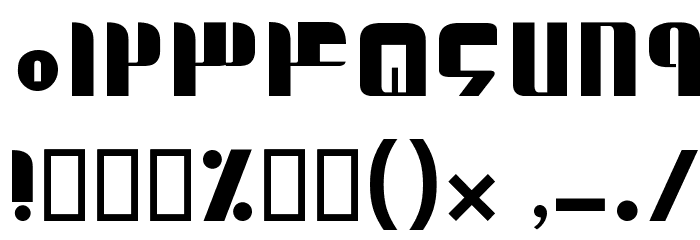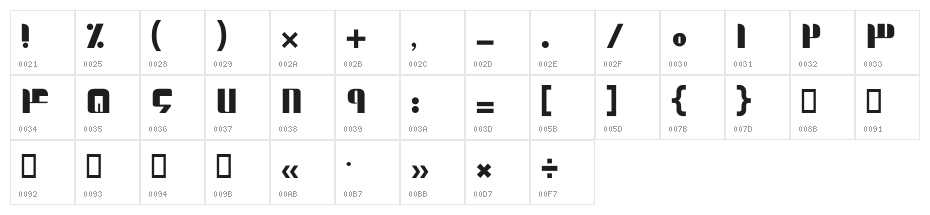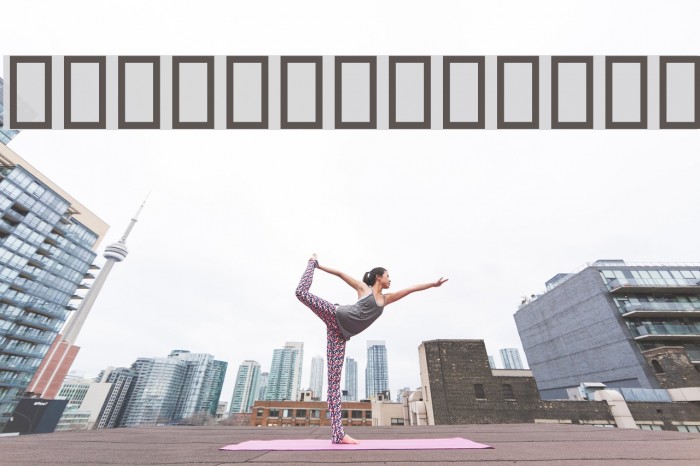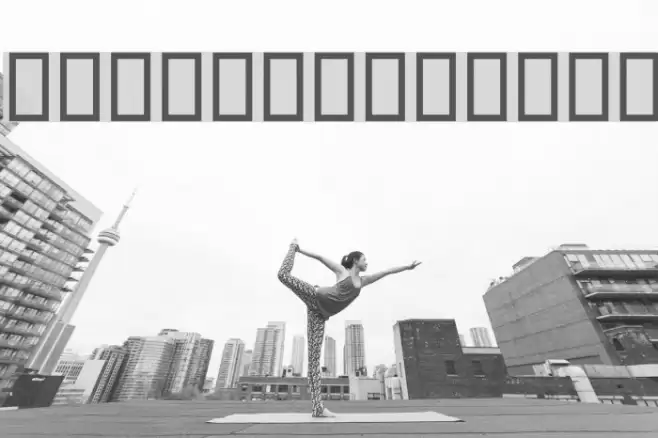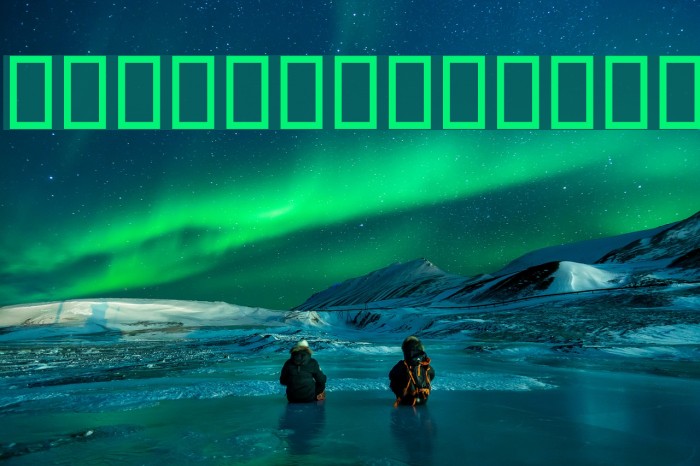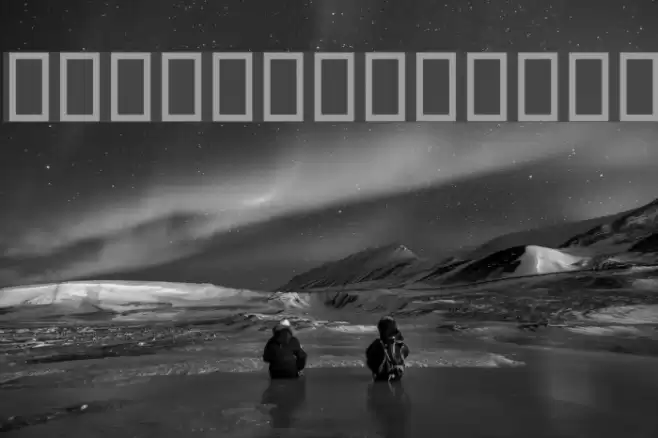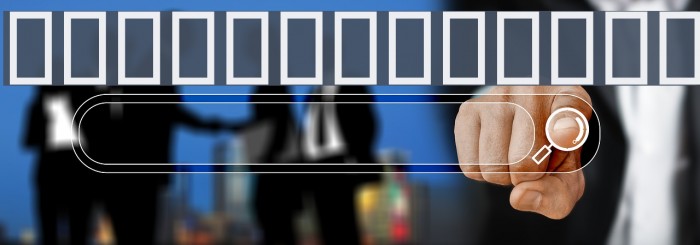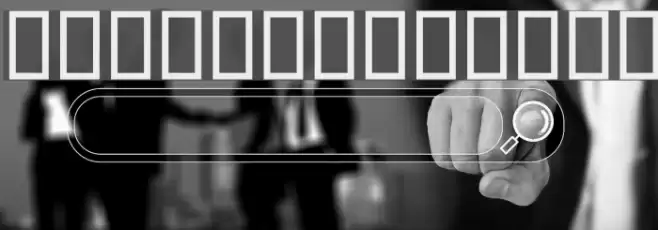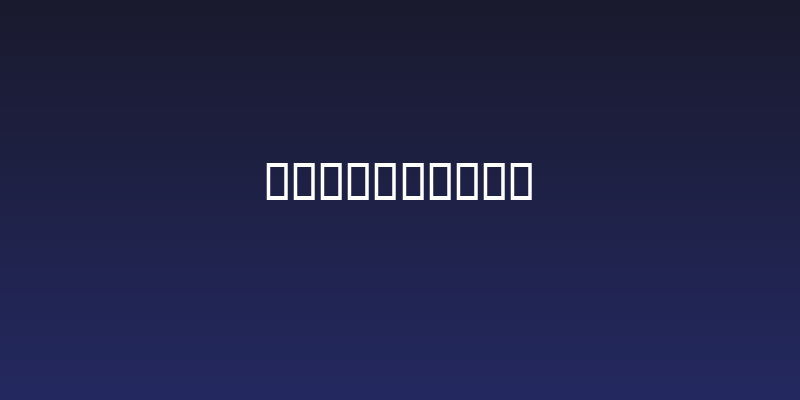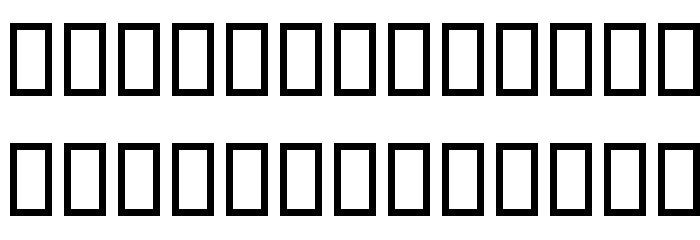
Khoraasaan Font
Khoraasaan Description
This font features a bold and futuristic design with a strong geometric influence. The characters are constructed with thick strokes and sharp angles, giving it a distinct and modern appearance. The uppercase letters are particularly striking, with unique shapes that make them stand out. The lowercase letters maintain a consistent style, ensuring readability while still being visually interesting. The numbers and special characters follow the same design principles, providing a cohesive look across all elements. This font is ideal for projects that require a contemporary and edgy aesthetic.
KHORAASAAN UPPERCASE
KHORAASAAN LOWERCASE
KHORAASAAN OTHER CHARS